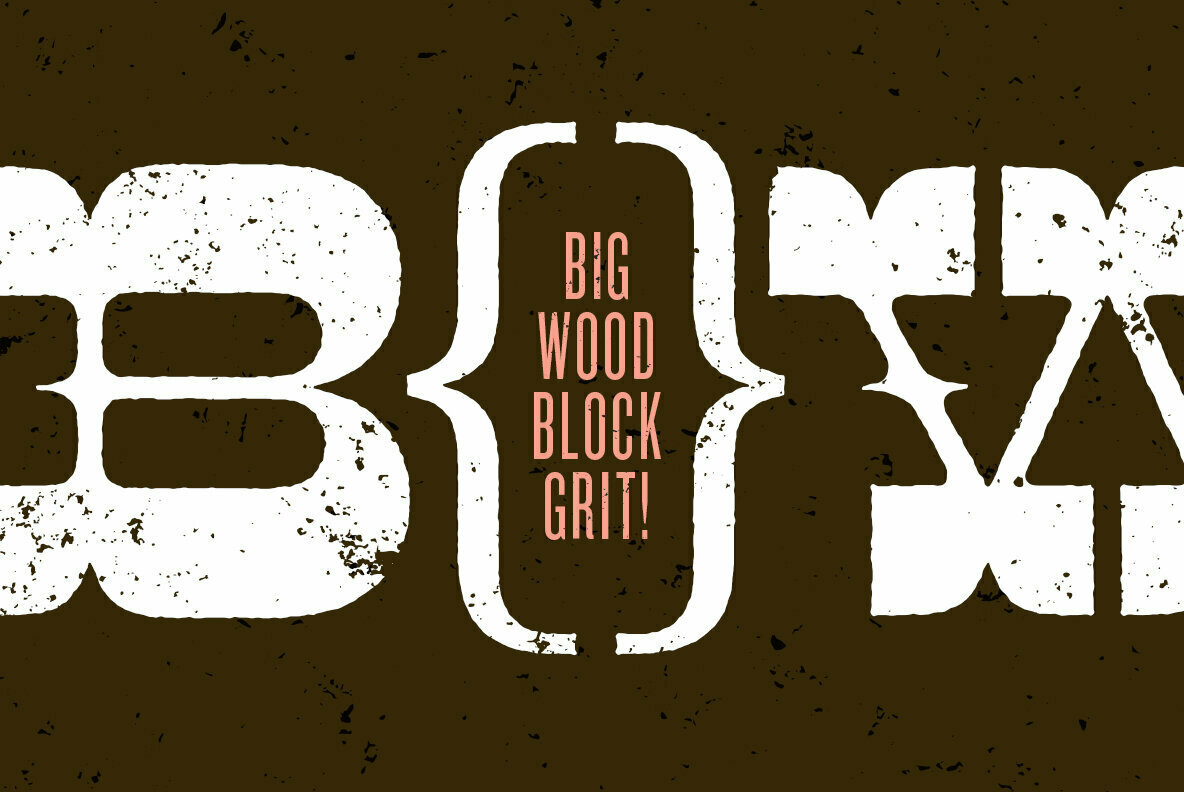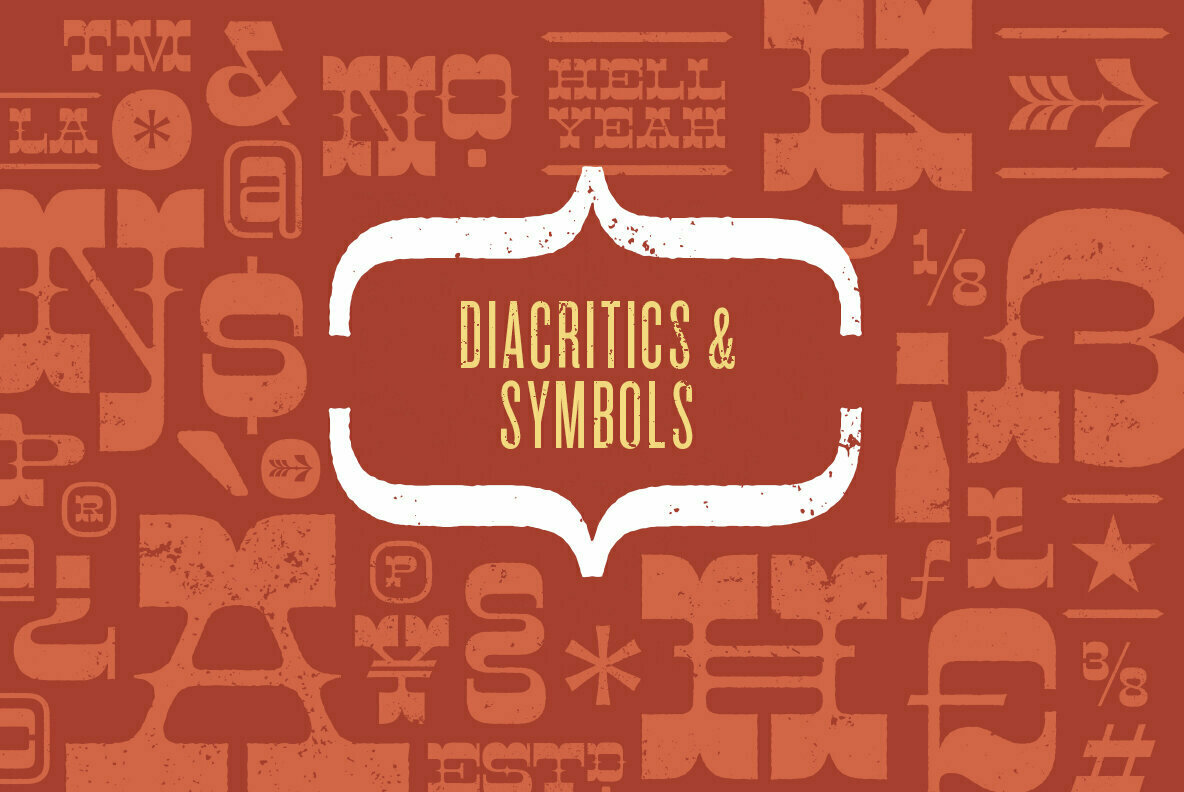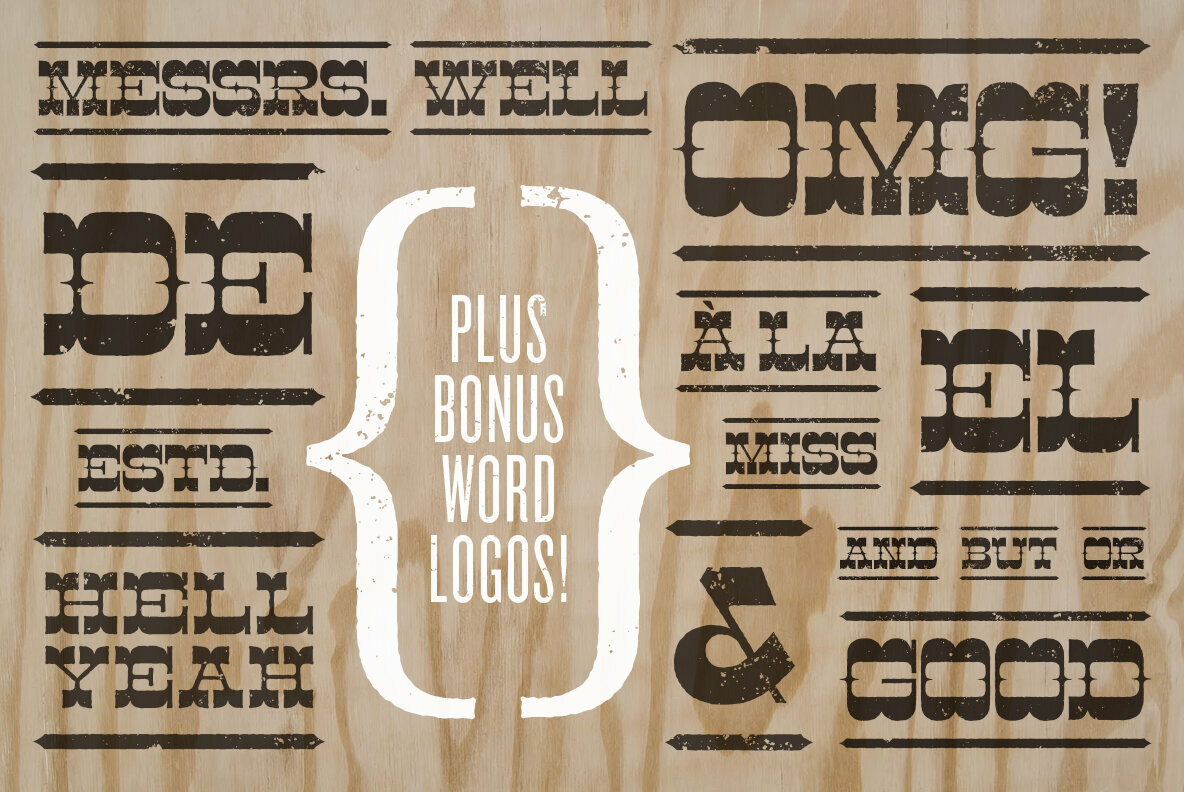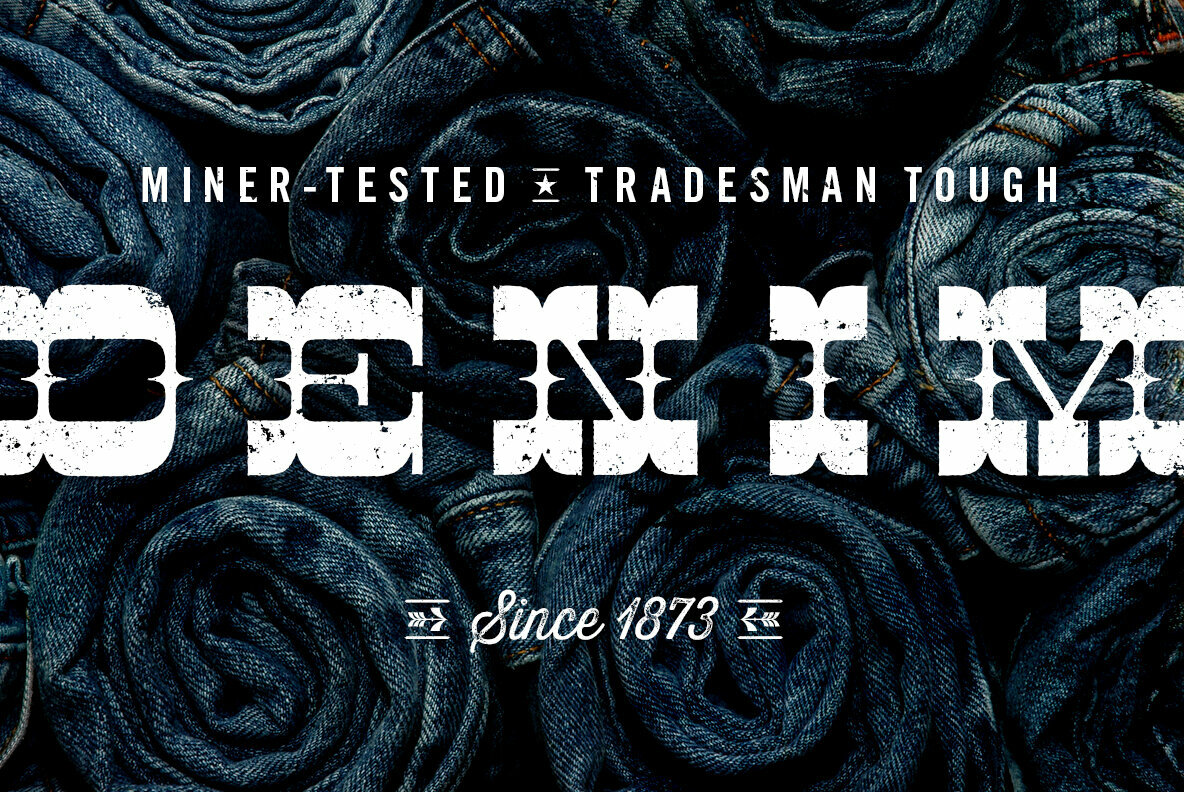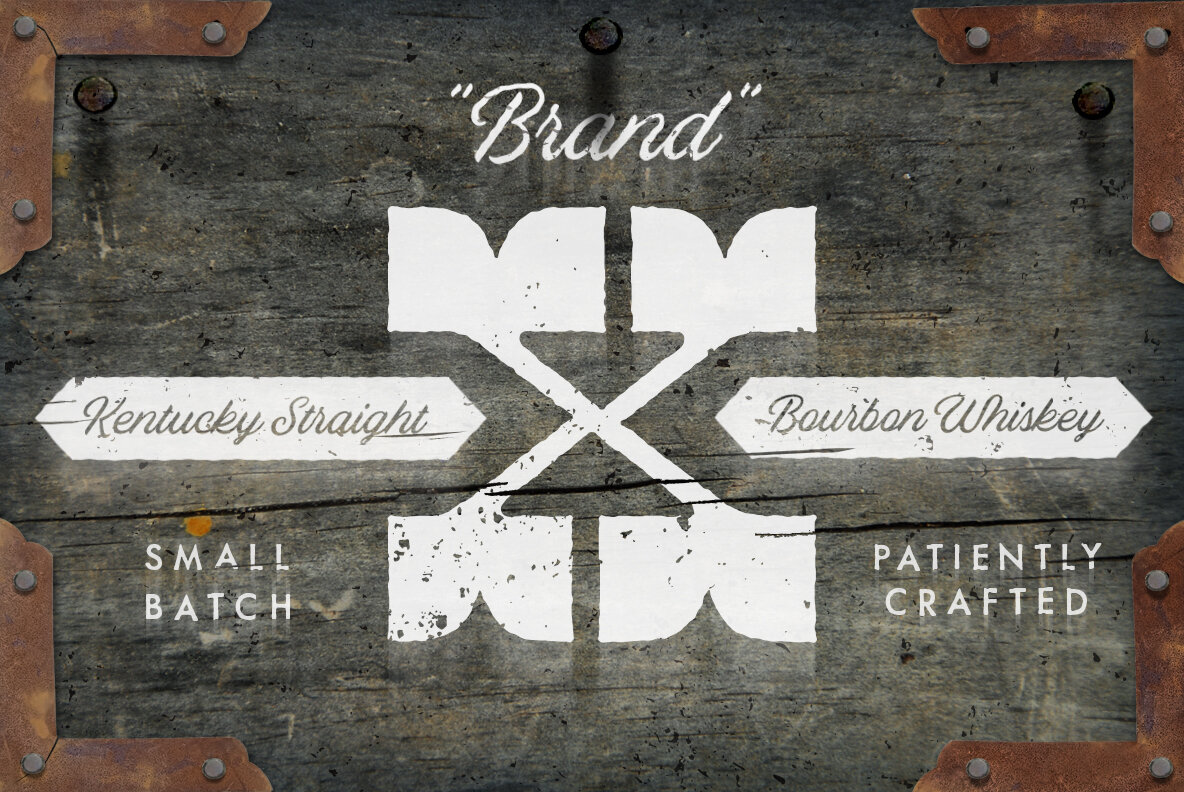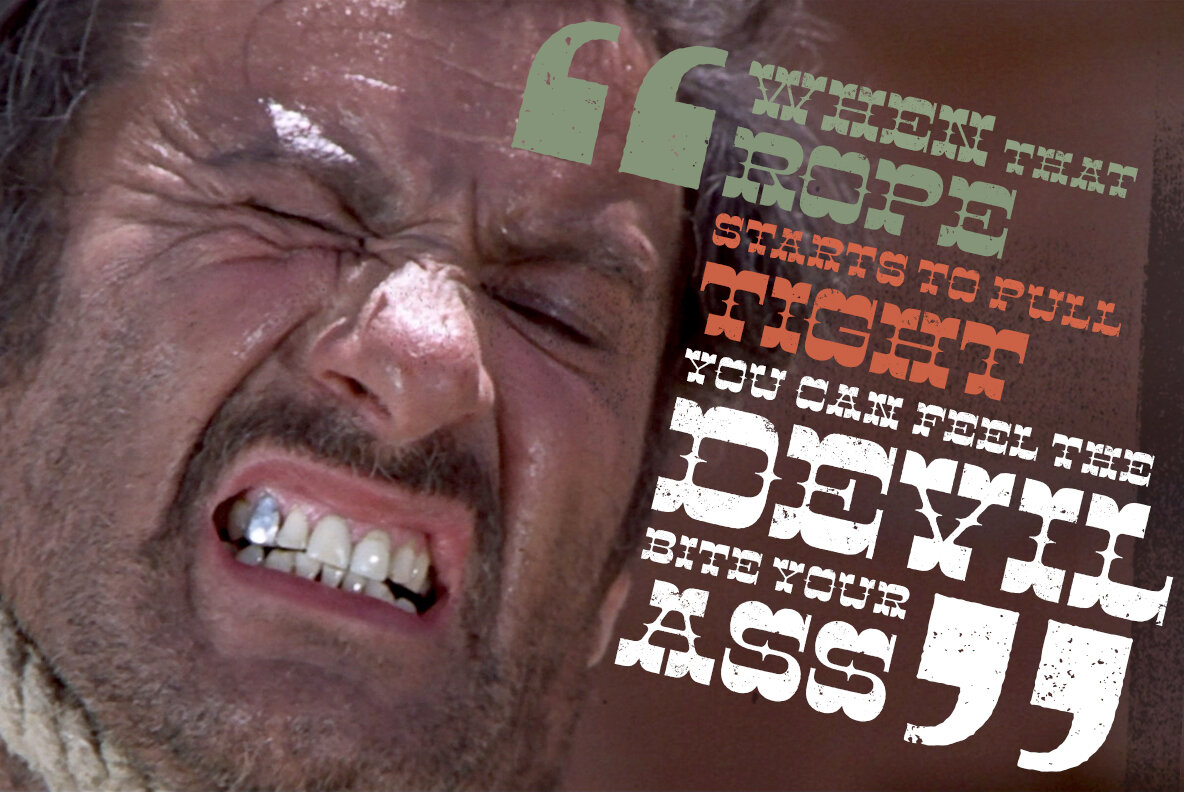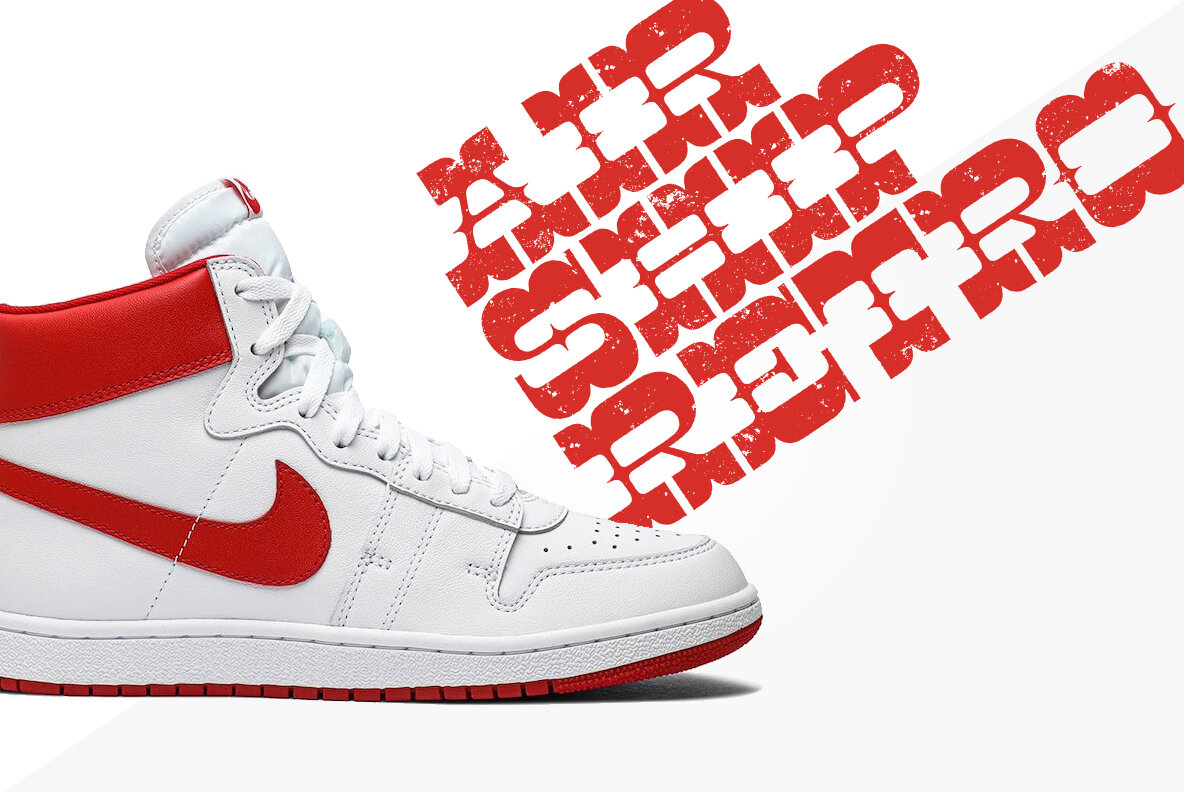
Cayuse Lo-Fi Font
Cayuse Lo Fi
Not long after we created our Cayuse western slab serif font, we began wondering:
"How would Cayuse look in a rough-hewn, wood block-printed format?"
… and … "Just how much texture, grit, and grime can we pack into Cayuse?"
The result? Say hello to Cayuse Lo-Fi!